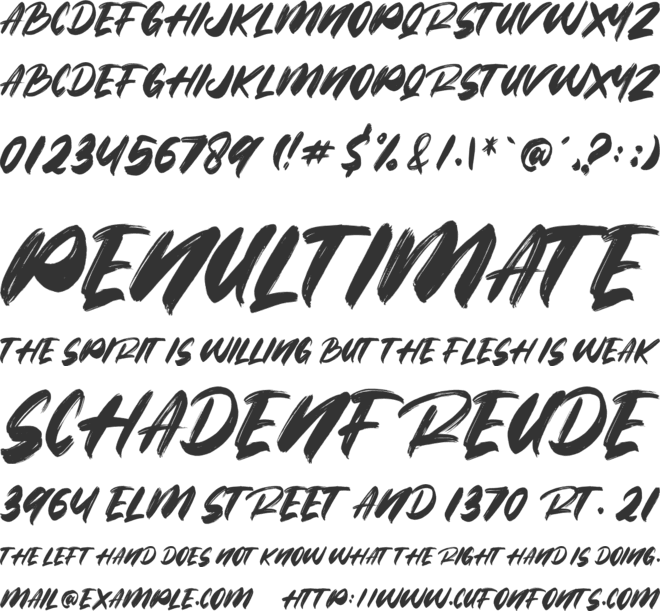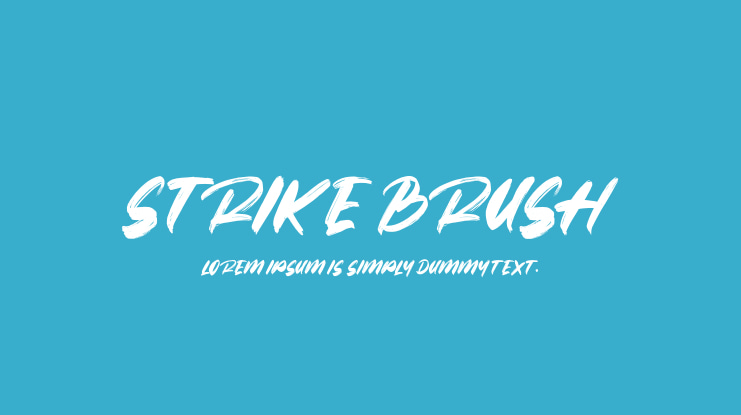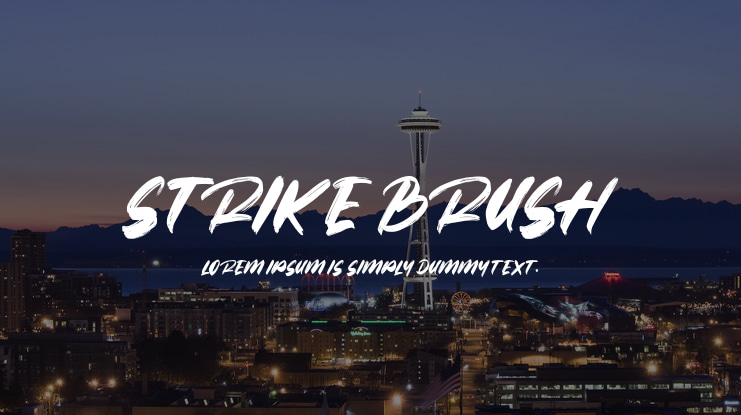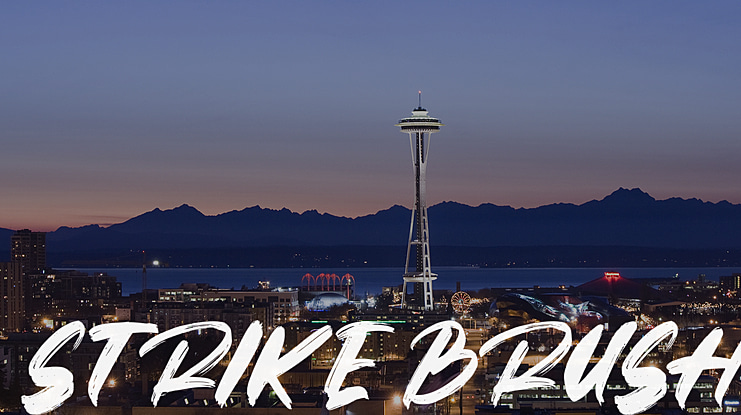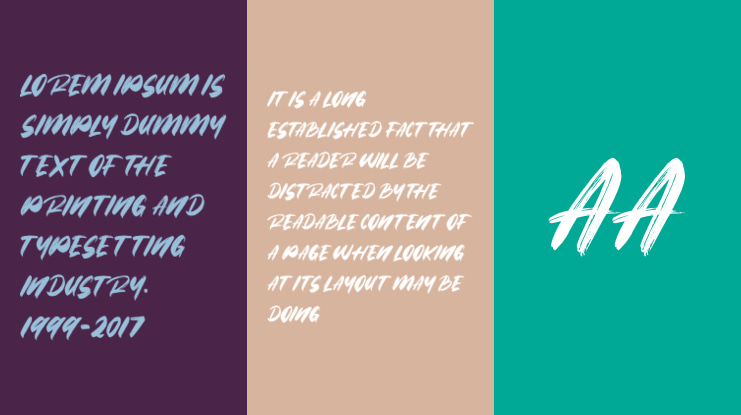
Strike Brush Font
This font is a handwriting brush effect that comes with a style that seems real. It is suitable for any branding, product packaging, invitation, quote, t-shirt, label, poster, logo that you wish to create.